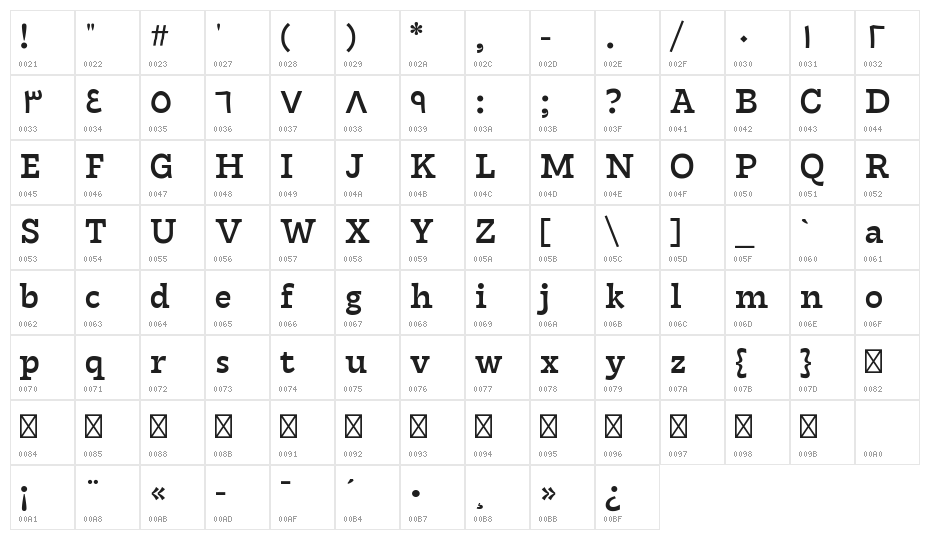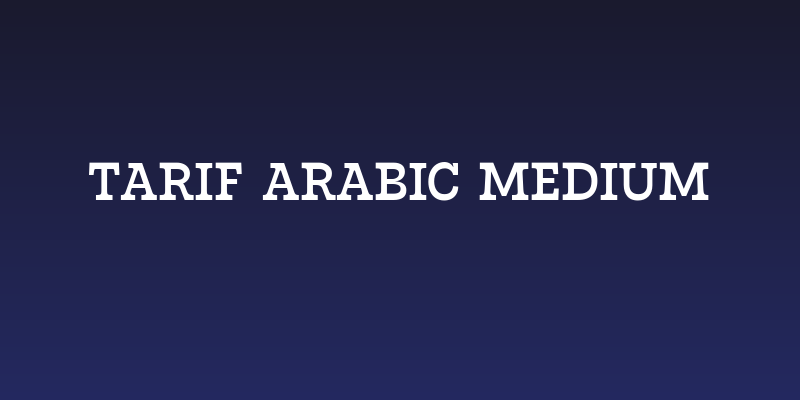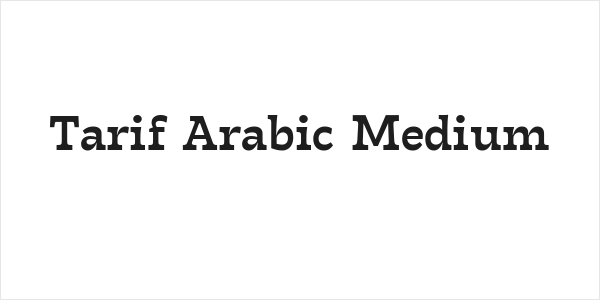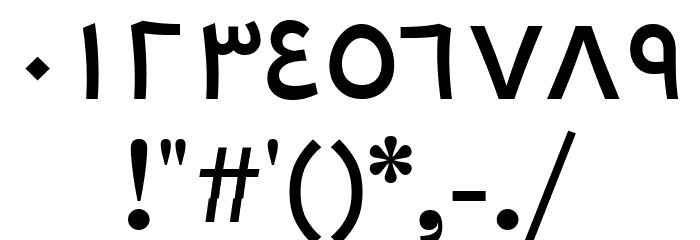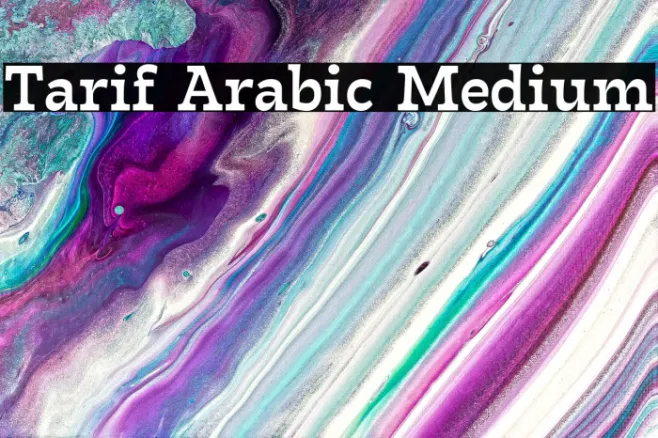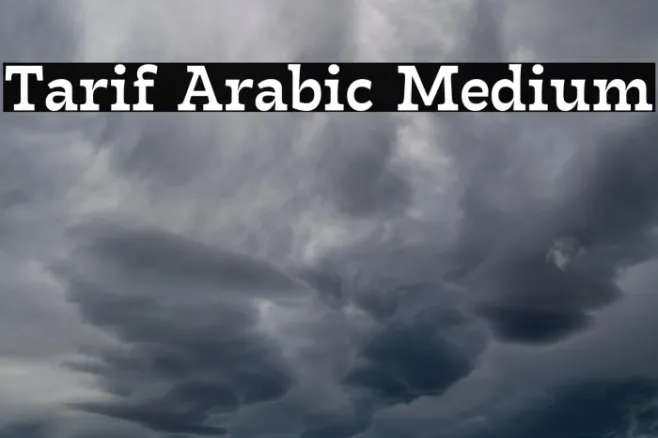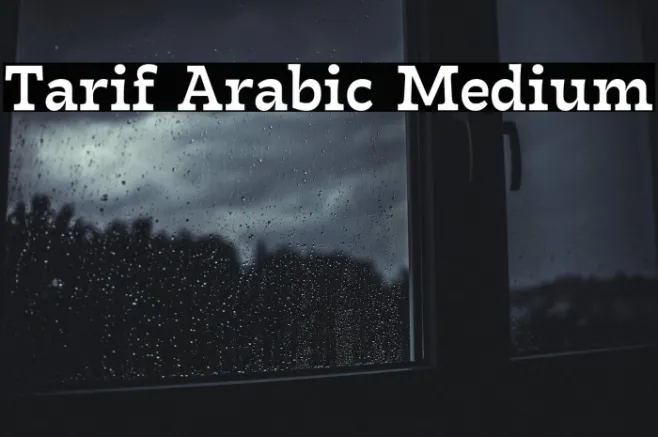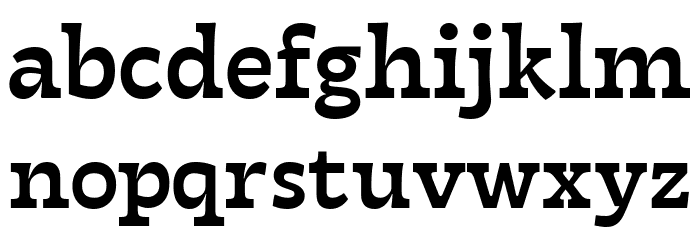
Tarif Arabic Medium Font
Tarif Arabic Medium Description
This font features a bold and confident style with a strong presence, characterized by its thick strokes and solid structure. The uppercase letters are robust and commanding, while the lowercase letters maintain a consistent weight, offering a harmonious balance. The numerals are distinct and clear, ensuring readability. Special characters are designed with a unique flair, adding a touch of personality. The overall design is modern yet timeless, making it versatile for various applications.